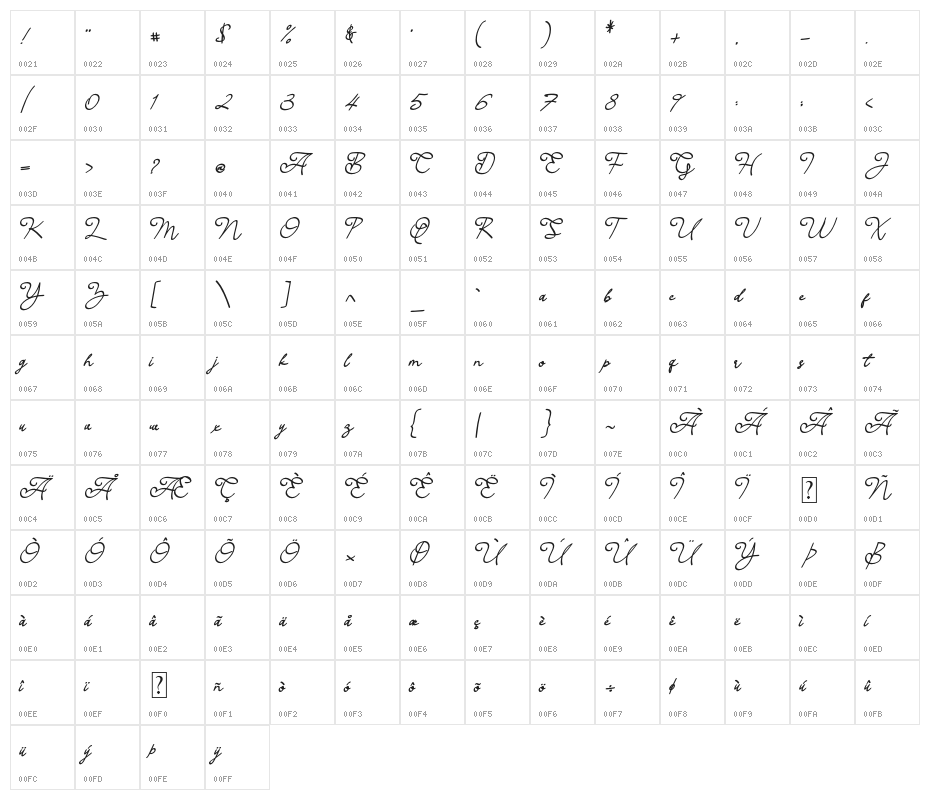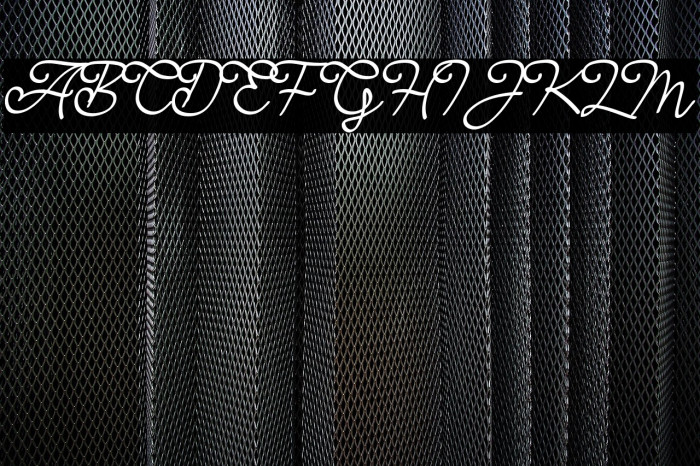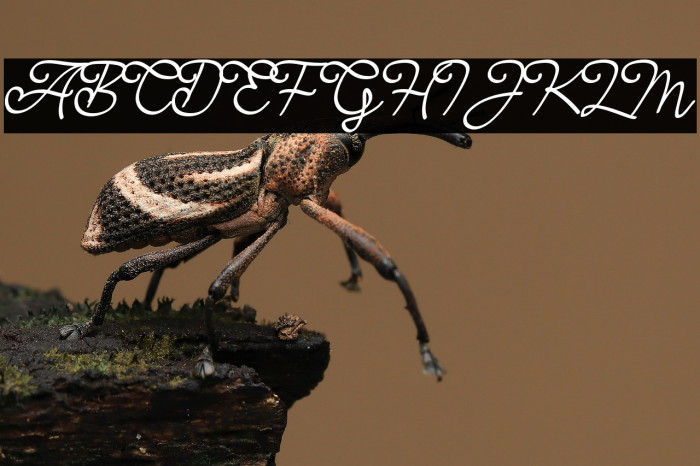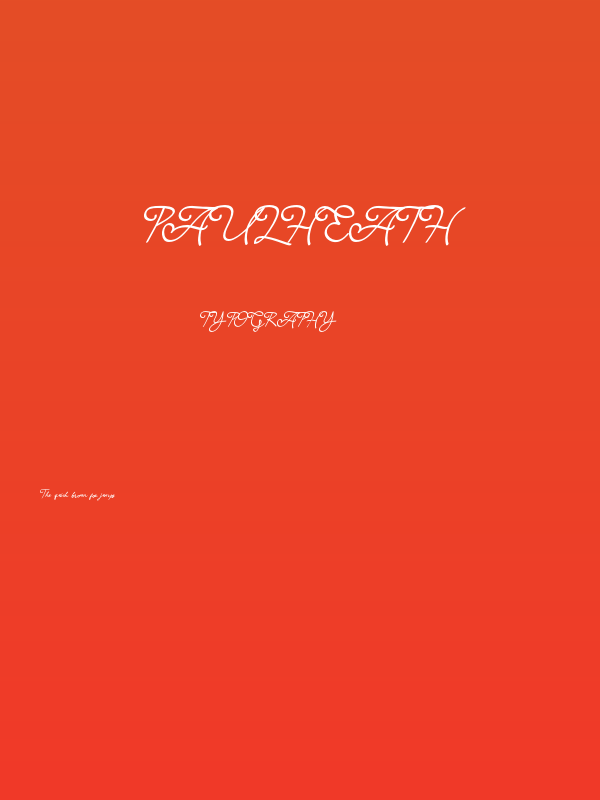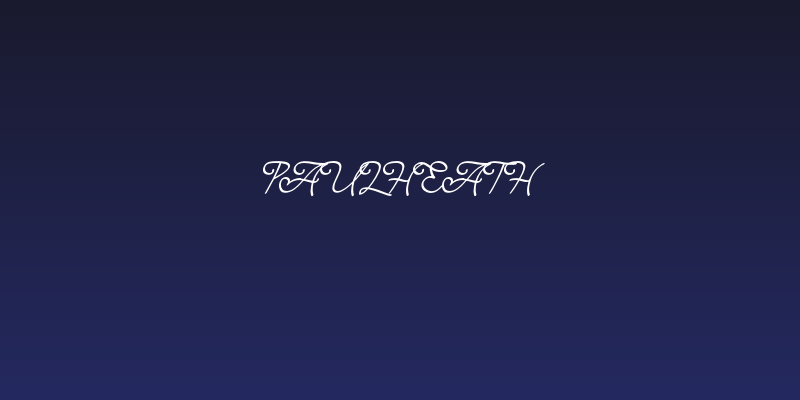
PaulHeath Font
PaulHeath Description
A cursive, handwritten style font with elegant, flowing strokes and a personal touch.
Fonts by Staircase Studio
| Use Case | Logos, Invitations |
| Proposed Projects | Invitations, greeting cards, personal branding. |